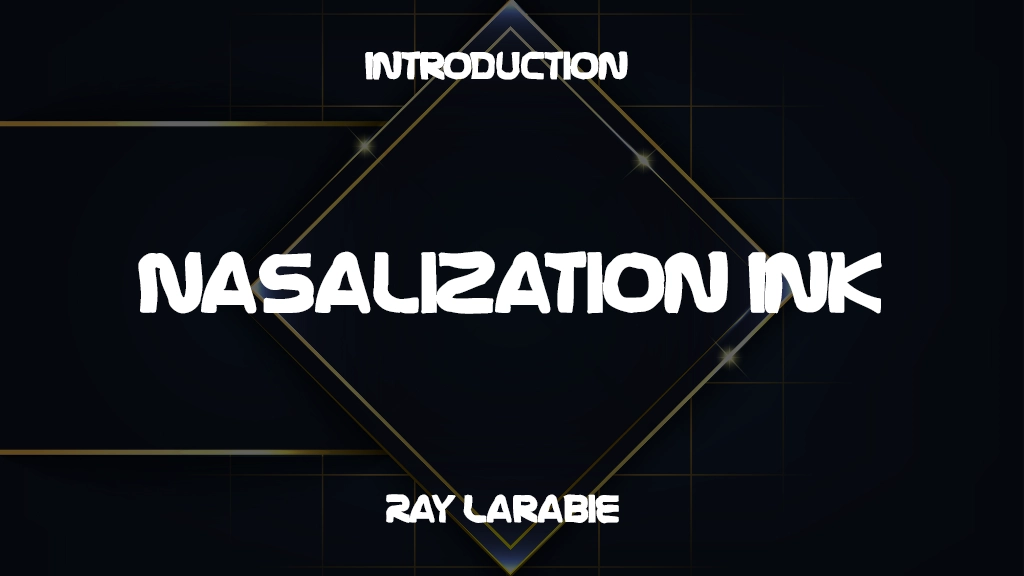
Nasalization Ink is a fun and playful font that can be used for personal projects. It was designed by Ray Larabie and is available in the Regular subfamily.